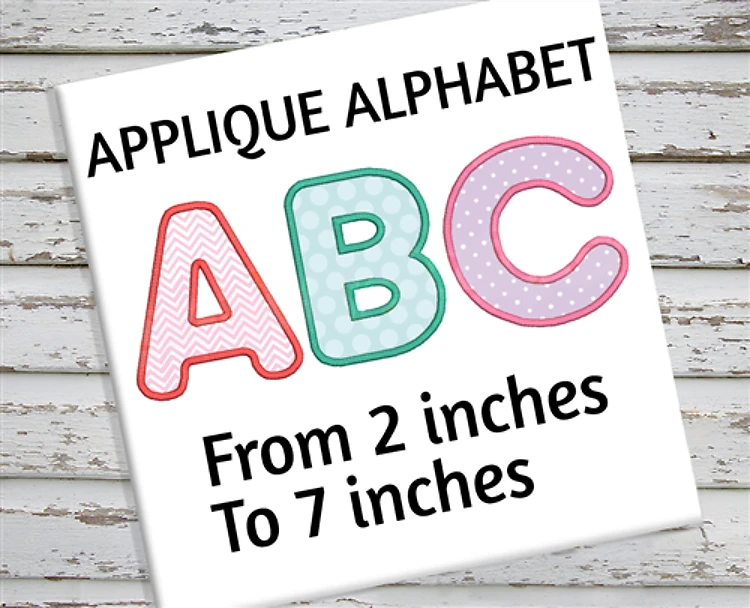
Artsy Knots is happy to present Applique Alphabet machine embroidery font which has Playful applique embroidery font with colorful letters A, B, and C, showcasing fun textures ideal for kids' clothing and accessories. Available in PES, DST, and 15 other machine formats. included. If you would like to view more embroidery fonts and alphabets please search our embroidery fonts page.